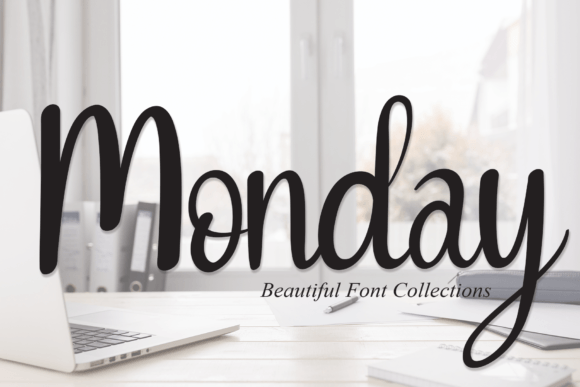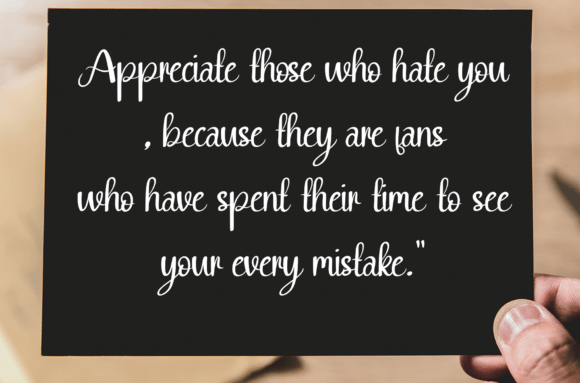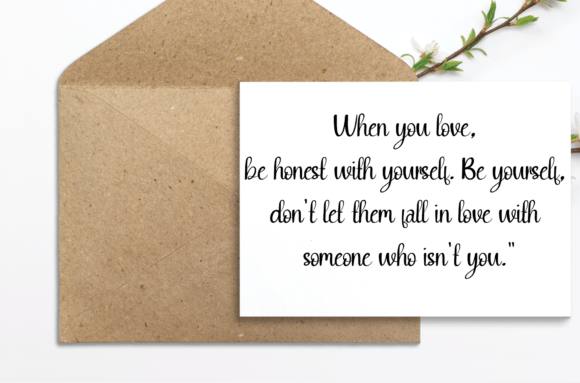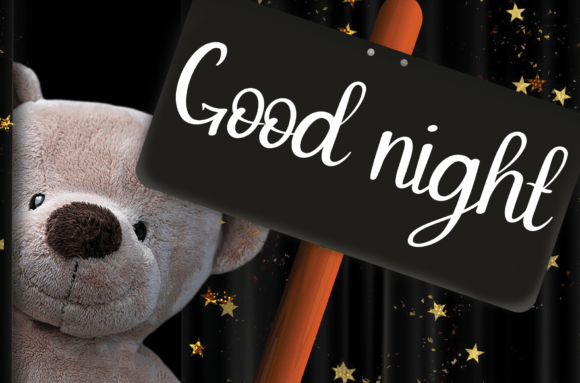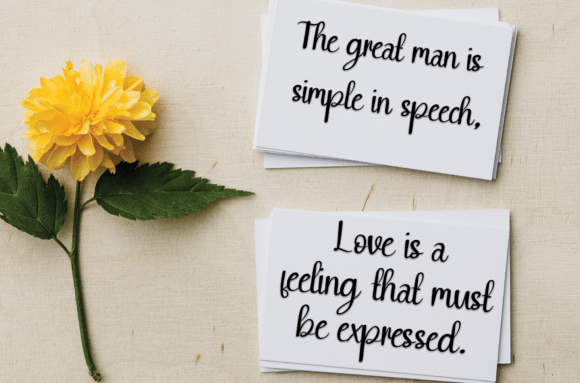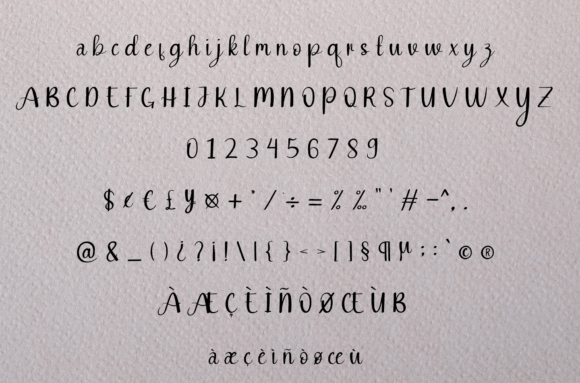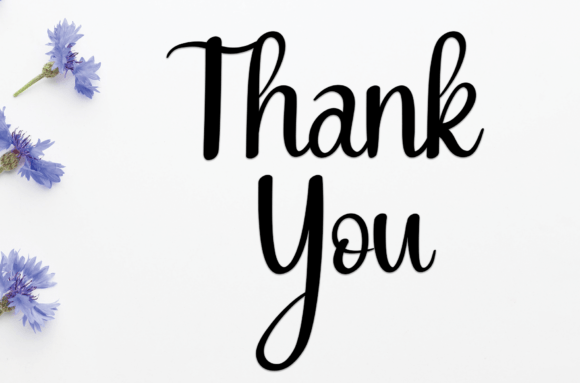
Monday Font
What Is Monday Font?
Monday is a sweet and friendly handwritten font designed to bring warmth and happiness to any project. Its playful curves and smooth lines add a personal and inviting feel that makes your text stand out. If you want your designs to look joyful and approachable, Monday is the perfect choice.
Right from the first glance, it gives your words a unique and memorable personality.
Monday is a versatile font that works beautifully in many situations. It’s especially great for wedding invitations. Whether you’re going for a classic or modern look, Monday adds a heartfelt touch that feels genuine and elegant.
It’s also an excellent pick for greeting cards. Use it to share birthday wishes, thank-you messages, or holiday greetings, and your cards will feel extra special and personal.
In social media graphics, Monday brings a cheerful and engaging vibe. If you need to create quotes, announcements, or promotions, this font helps your posts stand out and connect with your audience.
When designing product packaging or labels, Monday adds a handmade feel that makes any brand look friendly and unique. From small business branding to creative crafts, this font adapts to any theme with ease.
Why Choose Monday Font?
There are many reasons to add Monday to your font library. First, it stays legible at any size. Whether you’re designing large headlines or small text, each letter remains clear and balanced.
It also pairs nicely with serif and sans-serif fonts, so you can create layouts that look polished and cohesive.
Monday is fully PUA encoded, which means you can access all swashes, alternates, and special characters without extra software. This makes customizing your text quick and enjoyable.
Monday adds warmth, character, and a playful touch to any project. Even simple layouts become more memorable and attractive with its sweet handwritten style. Whether you’re creating wedding invitations, social media graphics, or product packaging, this font helps you stand out.
A high-quality handwritten font also shows your attention to detail, which builds trust and professionalism.
Monday isn’t just a font—it’s a creative companion that brings joy and authenticity to every design. From invitations and greeting cards to branding and labels, it adds a personal touch that makes your work shine.